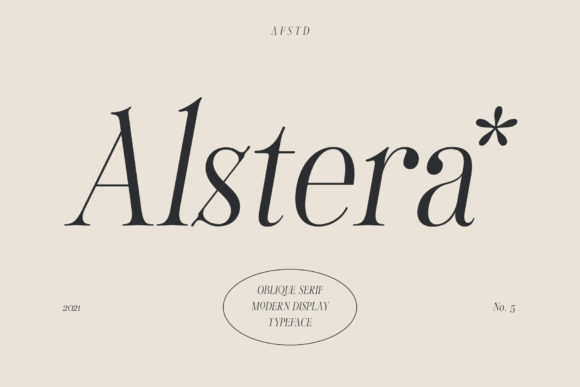
Alstera Oblique Font
Alstera Oblique is an elegant and distinct serif font. It is PUA encoded which means you can access all of the glyphs and swashes with ease! It maintains its classy calligraphic influences while feeling contemporary and fresh.